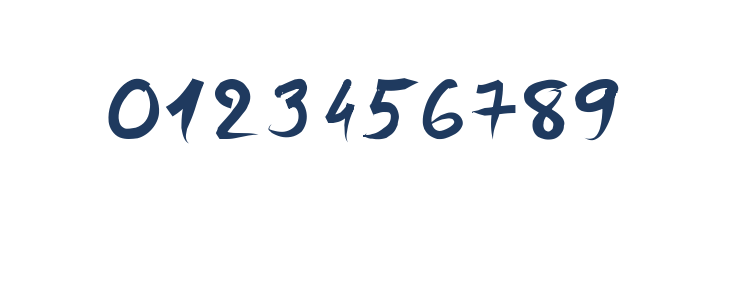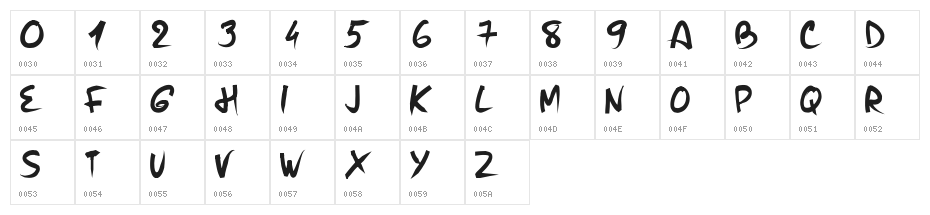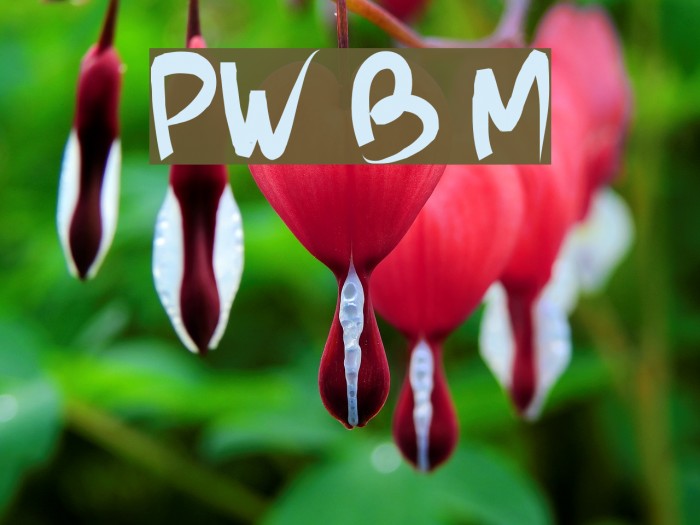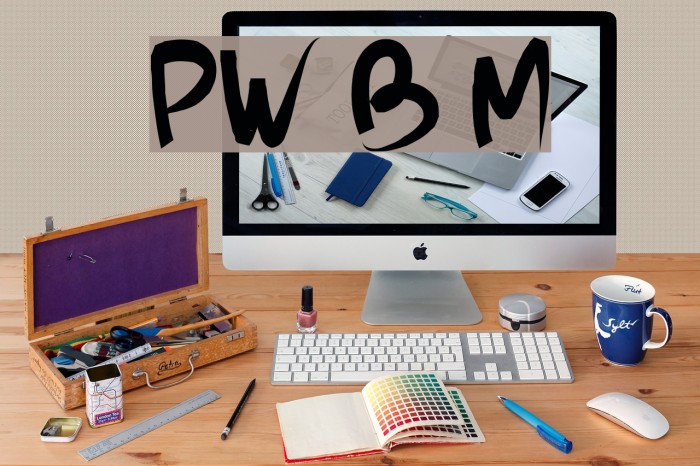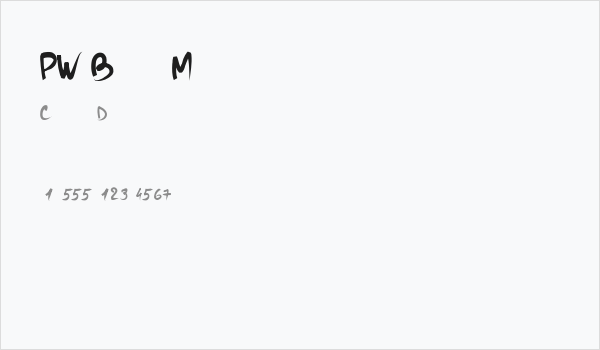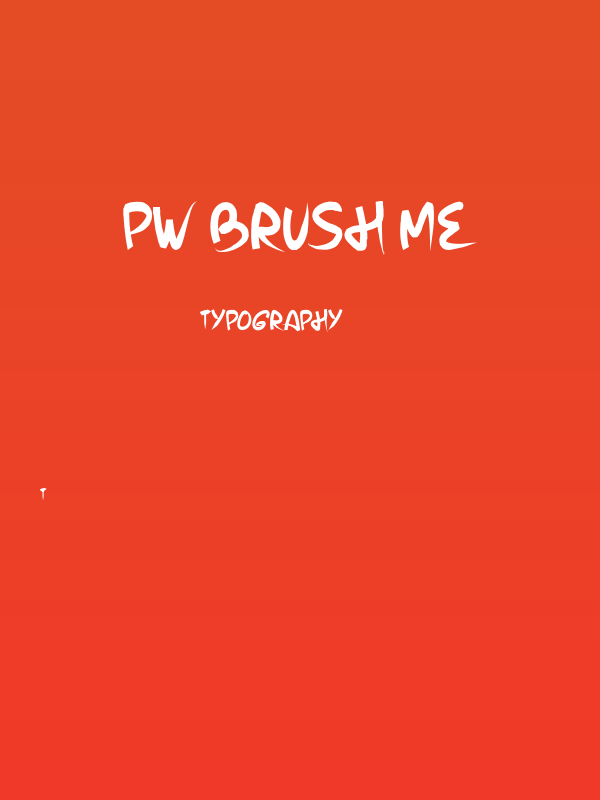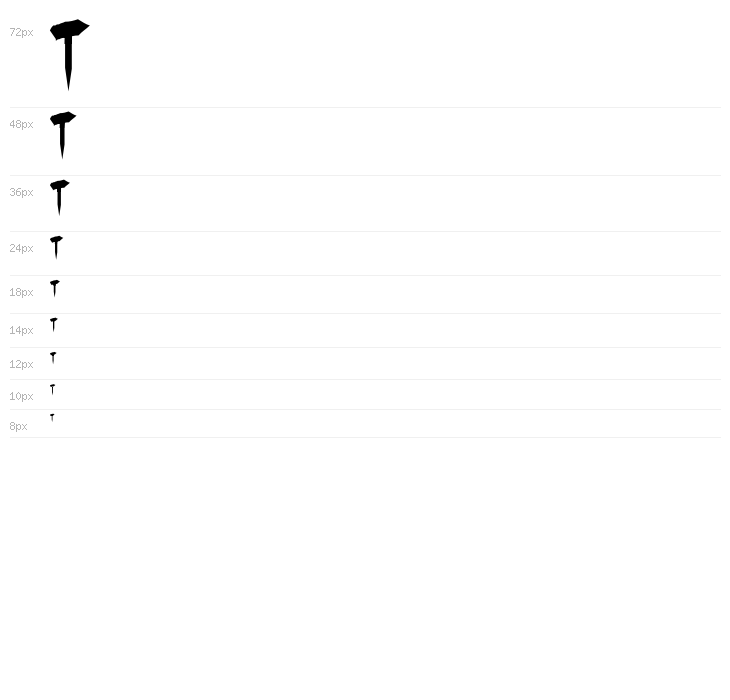
PW Brush Me Font
PW Brush Me Description
This font features a bold and dynamic brush style, characterized by its energetic strokes and fluid forms. The uppercase letters exhibit a sense of movement, with varying stroke widths that create a lively and artistic appearance. The numbers maintain the same expressive quality, ensuring consistency across all characters. The overall design is reminiscent of hand-painted signage, offering a unique blend of modern flair and traditional craftsmanship. The font's distinct personality makes it ideal for projects that require a touch of creativity and boldness.